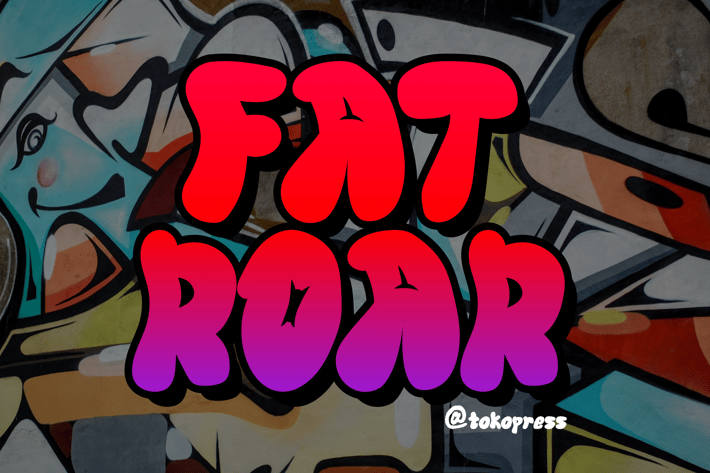
FAT ROAR- Cartoon Graffiti font
FAT ROAR- Cartoon Graffiti Font
Fat Roar is a chunky bubble-style graffiti typeface with soft curves, high contrast, and playful volume—perfect for bold visual storytelling and street-inspired creativity. Designed with a loud, hand-drawn attitude and a bouncy baseline, it radiates joyful rebellion and expressive flair. With a retro graffiti feel and cartoonish thickness, it blends nostalgic charm with vibrant energy. Whether you're designing youth apparel or loud product packaging, this font makes your words shout in style.
Fat Roar was made to stand out on walls, screens, and shelves. Ideal for use in urban poster design, youth-targeted branding, YouTube thumbnails, food packaging, and hip-hop event flyers, this font adds a dose of urban funk and fun. Its joyful, exaggerated forms connect instantly with audiences looking for a fresh, friendly, and rebellious tone—think pop culture, streetwear, and kids’ creative brands.
Key Features :
Street-Ready Aesthetic
- Inspired by graffiti tags, bubble letters, and urban murals
- Fun and expressive with a nostalgic cartoon edge
Built for Impact
- Great for display settings: posters, branding, merch, music covers, and packaging
- Fat, wide proportions ensure maximum visual punch at any size
* Engaging & Youthful
- Adds energy and playfulness to any layout
- Well-suited for kids’ books, toy packaging, vaporwave themes, and more
Let your designs ROAR with personality. Fat Roar is the ultimate typeface for creatives who want to bring bold fun and youthful attitude into their branding or visuals. Download it today and make your next project pop like street art on a fresh wall—perfect for rebellious designers, bold illustrators, and fearless creators.